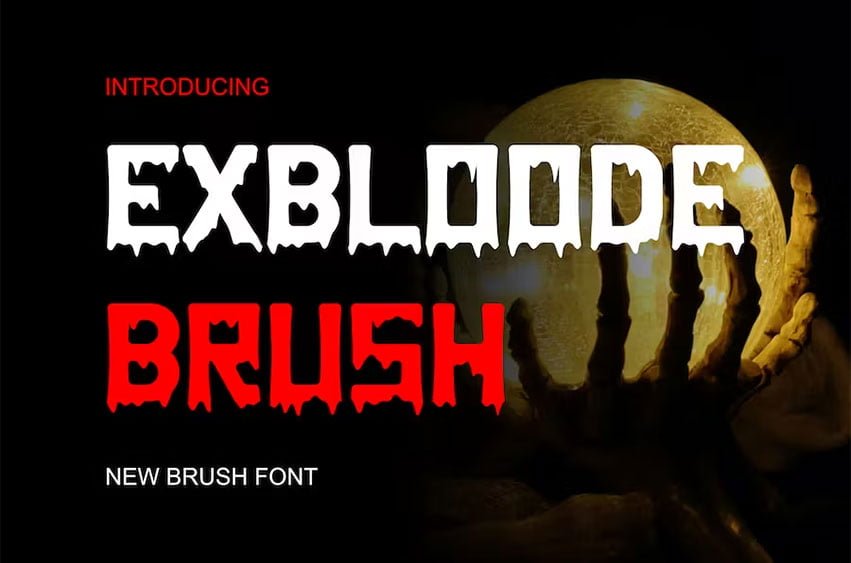
Exbloode Brush Font
Exbloode Brush Font Modern Font is a bold and authentic display font. The font is suitable for any branding project like logo, esport, and many more. outstanding in a wide range of contexts.